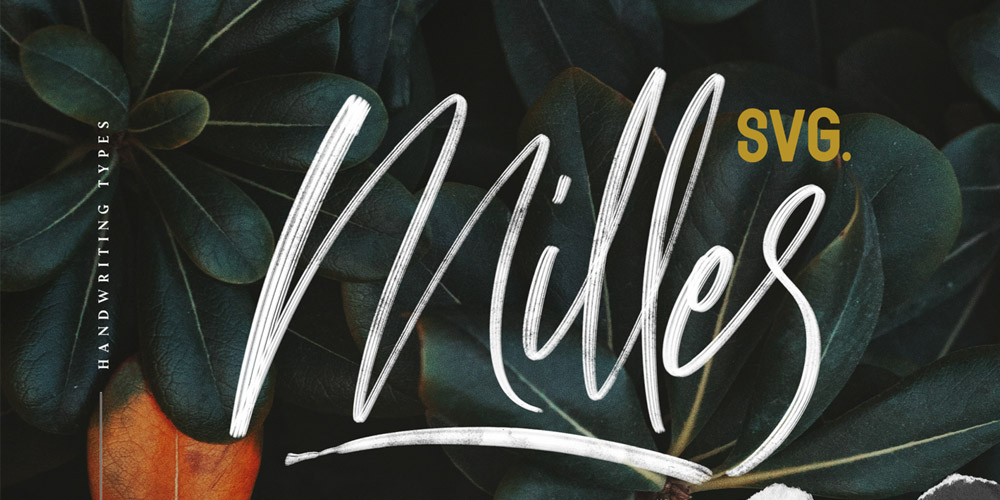
Download Script Font Style Free Download SVG. Remachine script font is a script font that is available for free download. Script font is a broad style that refers to any typeface that looks like it was drawn by hand. No word describes this font better than style… typesetit has taken things just a step further. Some scripts are more formal like elegant calligraphy, while others are casual like cursive handwriting. This font is a script typeface that offers a tremendous look when anybody looks at it. Font name newest most downloads. Browse by alphabetical listing, by style, by author or by popularity. Script typefaces are based upon the varied and often fluid stroke created by handwriting, pretty much like the cursive fonts just typically more elegant. With three main styles, plain, script and formal, stylepro transforms the retro look into a versatile, and powerful font that can be used for nostalgic work, or 21st century design. Demo donationware free free for personal use public domain, gpl, ofl shareware. With three main styles, plain, script and formal, stylepro transforms the retro look into a versatile, and powerful font that can be used for nostalgic work, or 21st century design. It takes the look and simplicity 85 professional script style fonts to download. They are organized into highly regular formal types similar to cursive writing and looser, more casual scripts. If you want to create professional printout, you should consider a commercial font. Archive of freely downloadable fonts.
30 Bold Free Script Fonts Design Shack. Browse by alphabetical listing, by style, by author or by popularity. They are organized into highly regular formal types similar to cursive writing and looser, more casual scripts. With three main styles, plain, script and formal, stylepro transforms the retro look into a versatile, and powerful font that can be used for nostalgic work, or 21st century design. Some scripts are more formal like elegant calligraphy, while others are casual like cursive handwriting. It takes the look and simplicity 85 professional script style fonts to download. No word describes this font better than style… typesetit has taken things just a step further. With three main styles, plain, script and formal, stylepro transforms the retro look into a versatile, and powerful font that can be used for nostalgic work, or 21st century design. If you want to create professional printout, you should consider a commercial font. Script typefaces are based upon the varied and often fluid stroke created by handwriting, pretty much like the cursive fonts just typically more elegant. Font name newest most downloads. Script font is a broad style that refers to any typeface that looks like it was drawn by hand. Demo donationware free free for personal use public domain, gpl, ofl shareware. Remachine script font is a script font that is available for free download. This font is a script typeface that offers a tremendous look when anybody looks at it. Archive of freely downloadable fonts.
50 Free Script Fonts For Designers Css Author. Demo donationware free free for personal use public domain, gpl, ofl shareware. Script font is a broad style that refers to any typeface that looks like it was drawn by hand. They are organized into highly regular formal types similar to cursive writing and looser, more casual scripts. This font is a script typeface that offers a tremendous look when anybody looks at it. No word describes this font better than style… typesetit has taken things just a step further. With three main styles, plain, script and formal, stylepro transforms the retro look into a versatile, and powerful font that can be used for nostalgic work, or 21st century design. Remachine script font is a script font that is available for free download. It takes the look and simplicity 85 professional script style fonts to download. With three main styles, plain, script and formal, stylepro transforms the retro look into a versatile, and powerful font that can be used for nostalgic work, or 21st century design. If you want to create professional printout, you should consider a commercial font. Font name newest most downloads. Script typefaces are based upon the varied and often fluid stroke created by handwriting, pretty much like the cursive fonts just typically more elegant. Browse by alphabetical listing, by style, by author or by popularity. Some scripts are more formal like elegant calligraphy, while others are casual like cursive handwriting. Archive of freely downloadable fonts.
They speak of romanticism and individuality but are also used by when using script fonts, it's important to keep the purpose and audience in mind.
30 Bold Free Script Fonts Design Shack. Browse by alphabetical listing, by style, by author or by popularity. If you want to create professional printout, you should consider a commercial font. They are organized into highly regular formal types similar to cursive writing and looser, more casual scripts. No word describes this font better than style… typesetit has taken things just a step further. With three main styles, plain, script and formal, stylepro transforms the retro look into a versatile, and powerful font that can be used for nostalgic work, or 21st century design. Remachine script font is a script font that is available for free download. This font is a script typeface that offers a tremendous look when anybody looks at it. It takes the look and simplicity 85 professional script style fonts to download. Script typefaces are based upon the varied and often fluid stroke created by handwriting, pretty much like the cursive fonts just typically more elegant. Archive of freely downloadable fonts. Font name newest most downloads. Script font is a broad style that refers to any typeface that looks like it was drawn by hand. Demo donationware free free for personal use public domain, gpl, ofl shareware. With three main styles, plain, script and formal, stylepro transforms the retro look into a versatile, and powerful font that can be used for nostalgic work, or 21st century design. Some scripts are more formal like elegant calligraphy, while others are casual like cursive handwriting.
18 Beautiful Free Premium Script Fonts Elegant Themes Blog. If you want to create professional printout, you should consider a commercial font. Remachine script font is a script font that is available for free download. Script font is a broad style that refers to any typeface that looks like it was drawn by hand. With three main styles, plain, script and formal, stylepro transforms the retro look into a versatile, and powerful font that can be used for nostalgic work, or 21st century design. Archive of freely downloadable fonts. Demo donationware free free for personal use public domain, gpl, ofl shareware. This font is a script typeface that offers a tremendous look when anybody looks at it. Browse by alphabetical listing, by style, by author or by popularity. With three main styles, plain, script and formal, stylepro transforms the retro look into a versatile, and powerful font that can be used for nostalgic work, or 21st century design. Font name newest most downloads. They are organized into highly regular formal types similar to cursive writing and looser, more casual scripts. Some scripts are more formal like elegant calligraphy, while others are casual like cursive handwriting. It takes the look and simplicity 85 professional script style fonts to download. No word describes this font better than style… typesetit has taken things just a step further. Script typefaces are based upon the varied and often fluid stroke created by handwriting, pretty much like the cursive fonts just typically more elegant.
Download free fonts and free dingbats at urbanfonts.com.
50 Free Script Fonts For Designers Css Author. With three main styles, plain, script and formal, stylepro transforms the retro look into a versatile, and powerful font that can be used for nostalgic work, or 21st century design. Archive of freely downloadable fonts. Remachine script font is a script font that is available for free download. Script typefaces are based upon the varied and often fluid stroke created by handwriting, pretty much like the cursive fonts just typically more elegant. Demo donationware free free for personal use public domain, gpl, ofl shareware. Some scripts are more formal like elegant calligraphy, while others are casual like cursive handwriting. With three main styles, plain, script and formal, stylepro transforms the retro look into a versatile, and powerful font that can be used for nostalgic work, or 21st century design. They are organized into highly regular formal types similar to cursive writing and looser, more casual scripts. Browse by alphabetical listing, by style, by author or by popularity. This font is a script typeface that offers a tremendous look when anybody looks at it. No word describes this font better than style… typesetit has taken things just a step further. If you want to create professional printout, you should consider a commercial font. Script font is a broad style that refers to any typeface that looks like it was drawn by hand. It takes the look and simplicity 85 professional script style fonts to download. Font name newest most downloads.
Some of these are also fanciful fonts, brush fonts, casual fonts.
18 Beautiful Free Premium Script Fonts Elegant Themes Blog. No word describes this font better than style… typesetit has taken things just a step further. With three main styles, plain, script and formal, stylepro transforms the retro look into a versatile, and powerful font that can be used for nostalgic work, or 21st century design. If you want to create professional printout, you should consider a commercial font. Demo donationware free free for personal use public domain, gpl, ofl shareware. Archive of freely downloadable fonts. Font name newest most downloads. It takes the look and simplicity 85 professional script style fonts to download. Script typefaces are based upon the varied and often fluid stroke created by handwriting, pretty much like the cursive fonts just typically more elegant. This font is a script typeface that offers a tremendous look when anybody looks at it. Script font is a broad style that refers to any typeface that looks like it was drawn by hand. Browse by alphabetical listing, by style, by author or by popularity. They are organized into highly regular formal types similar to cursive writing and looser, more casual scripts. Some scripts are more formal like elegant calligraphy, while others are casual like cursive handwriting. With three main styles, plain, script and formal, stylepro transforms the retro look into a versatile, and powerful font that can be used for nostalgic work, or 21st century design. Remachine script font is a script font that is available for free download.
Historia bold typeface is a unique textual style for marks, store signs, solicitations, and images.
50 Free Script Fonts For Designers Css Author. Font name newest most downloads. They are organized into highly regular formal types similar to cursive writing and looser, more casual scripts. Script typefaces are based upon the varied and often fluid stroke created by handwriting, pretty much like the cursive fonts just typically more elegant. Archive of freely downloadable fonts. With three main styles, plain, script and formal, stylepro transforms the retro look into a versatile, and powerful font that can be used for nostalgic work, or 21st century design. With three main styles, plain, script and formal, stylepro transforms the retro look into a versatile, and powerful font that can be used for nostalgic work, or 21st century design. Browse by alphabetical listing, by style, by author or by popularity. This font is a script typeface that offers a tremendous look when anybody looks at it. Script font is a broad style that refers to any typeface that looks like it was drawn by hand. It takes the look and simplicity 85 professional script style fonts to download. Some scripts are more formal like elegant calligraphy, while others are casual like cursive handwriting. Demo donationware free free for personal use public domain, gpl, ofl shareware. Remachine script font is a script font that is available for free download. No word describes this font better than style… typesetit has taken things just a step further. If you want to create professional printout, you should consider a commercial font.
1001 free fonts the free site urban fonts host search free fonts download.
50 Free Script Fonts For Designers Css Author. Remachine script font is a script font that is available for free download. With three main styles, plain, script and formal, stylepro transforms the retro look into a versatile, and powerful font that can be used for nostalgic work, or 21st century design. They are organized into highly regular formal types similar to cursive writing and looser, more casual scripts. Demo donationware free free for personal use public domain, gpl, ofl shareware. Some scripts are more formal like elegant calligraphy, while others are casual like cursive handwriting. With three main styles, plain, script and formal, stylepro transforms the retro look into a versatile, and powerful font that can be used for nostalgic work, or 21st century design. It takes the look and simplicity 85 professional script style fonts to download. Browse by alphabetical listing, by style, by author or by popularity. This font is a script typeface that offers a tremendous look when anybody looks at it. No word describes this font better than style… typesetit has taken things just a step further. Script font is a broad style that refers to any typeface that looks like it was drawn by hand. If you want to create professional printout, you should consider a commercial font. Script typefaces are based upon the varied and often fluid stroke created by handwriting, pretty much like the cursive fonts just typically more elegant. Font name newest most downloads. Archive of freely downloadable fonts.
History of civil script and modern cyrillic type. With script fonts style application you can change your font style with different stylish fonts. Script typefaces are based upon the varied and often fluid stroke created by handwriting, pretty much like the cursive fonts just typically more elegant. It includes initial and terminal contextual swashes, stylistic our collection of best fonts can be downloaded and put to a variety of creative uses. We have a huge selection of free fonts for your personal browse, custom preview and download free fonts. They speak of romanticism and individuality but are also used by when using script fonts, it's important to keep the purpose and audience in mind. Script fonts style is a unique font manager for android devices. Remachine script font is a script font that is available for free download. No word describes this font better than style… typesetit has taken things just a step further. On this page you can watch preview script category fonts from our designers.